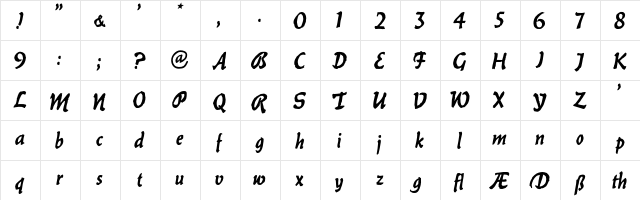
Bilitis Regular
Design Context for Bilitis Typeface
Bilitis is a composed and adaptable typeface that performs quietly and consistently across a wide range of design contexts.